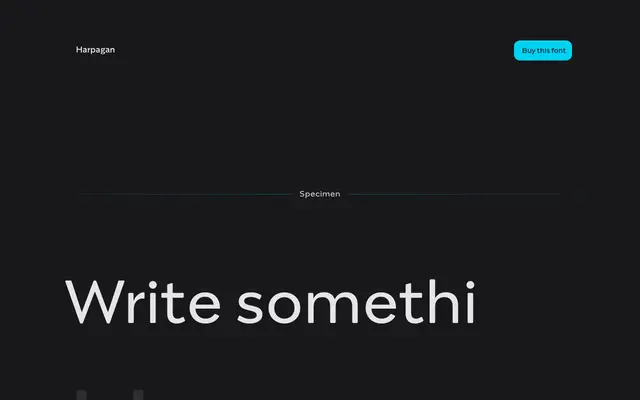
Harpagan
A five-weight grotesque sans from Capitalics designer Mateusz Machalski, aimed at branding and identity work.
Spanning Thin through Bold, Harpagan is a grotesque sans designed by Mateusz Machalski at Capitalics, a Polish foundry. The family offers five weights without italics or condensed cuts, keeping the focus on clean upright forms suited to logotypes and visual identity. A straightforward option for brand-led work where restraint is the priority.
The specimen and weight range suggest a contemporary grotesque sans-serif with no italics or condensed variants listed, pointing to a restrained, functional design.